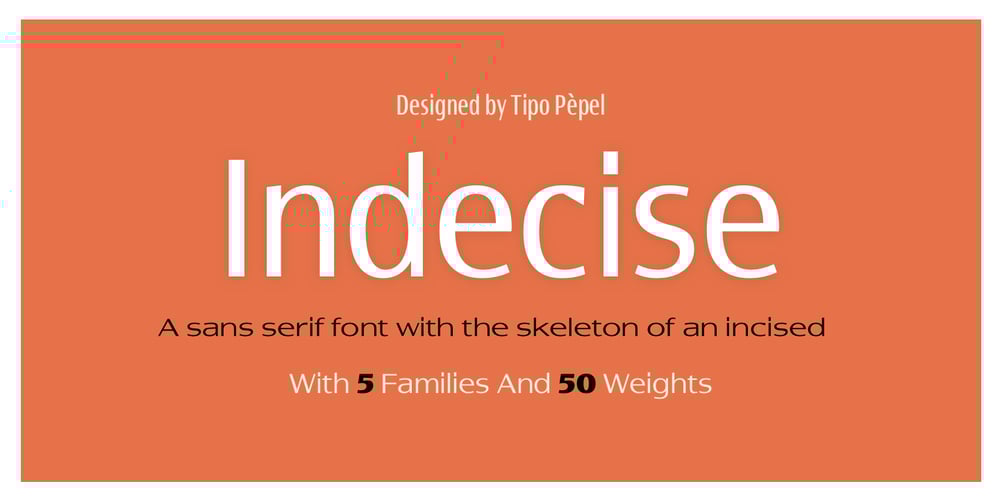
Indecise Font Family was designed by Josep Patau Bellart and published by Tipo Pèpel. Indecise contains 50 styles and family package options. Even though the name seems not to tell much, Indecise shows a clean and coherent design. The shapes of the characters reference the Latin typefaces that were promoted by great figures like Enric Crous-Vidal and José Mendoza y Almeida in the 50s. Indecise uses the body of incise typefaces and gets rid of the subtle terminals for the strokes. It is a high-contrast sans divided into 5 elegant subfamilies, which use different widths. From the condensed version to the extended one, the family includes 50 fonts counting upright and italic. This collection of widths make for many possible combinations of styles. Indecise is a humanist typeface, it puts geometry apart and embraces the calligraphic gesture. This helps to suggest the movement of the strokes while avoiding to create text with a static appearance. Thin and thick strokes come together and define a smooth rhythm for reading.